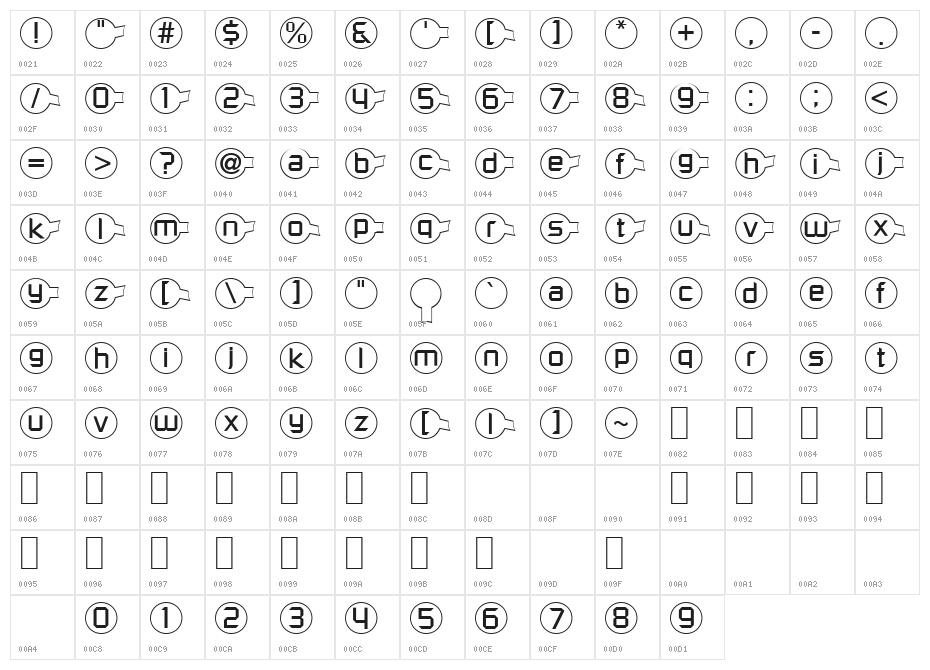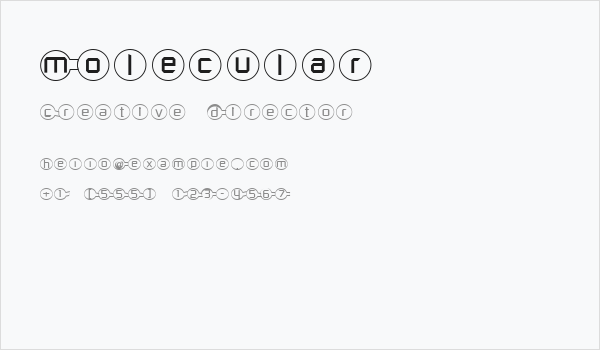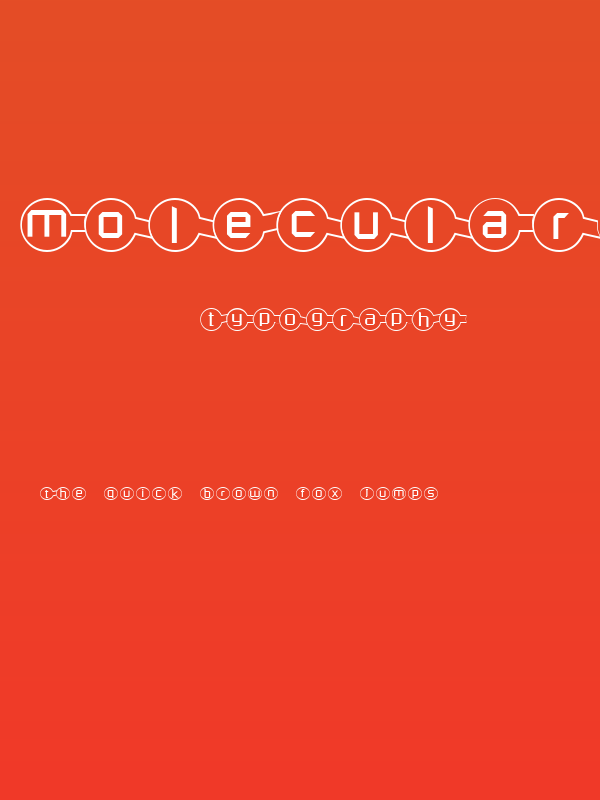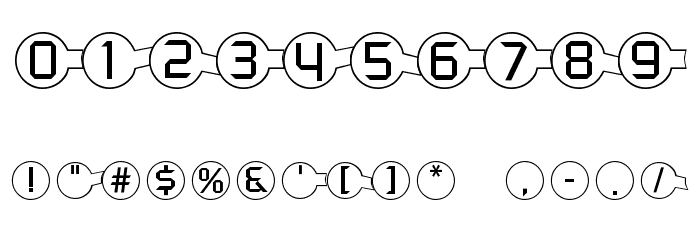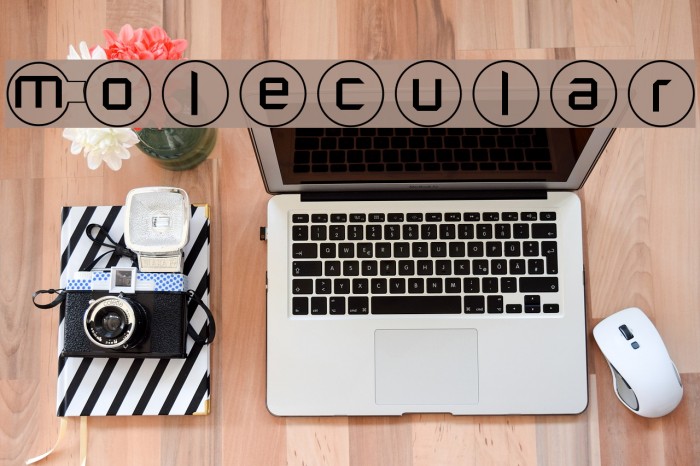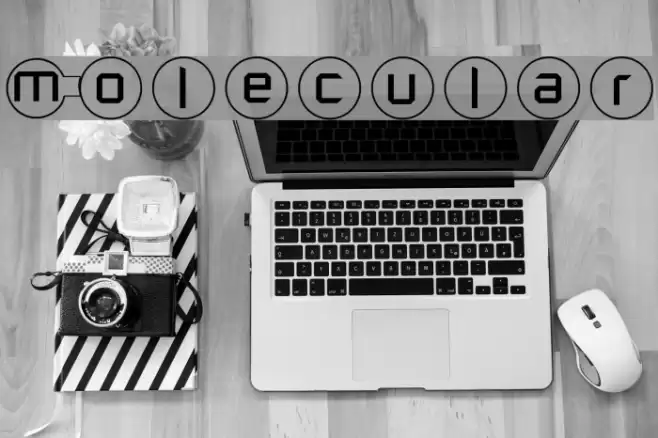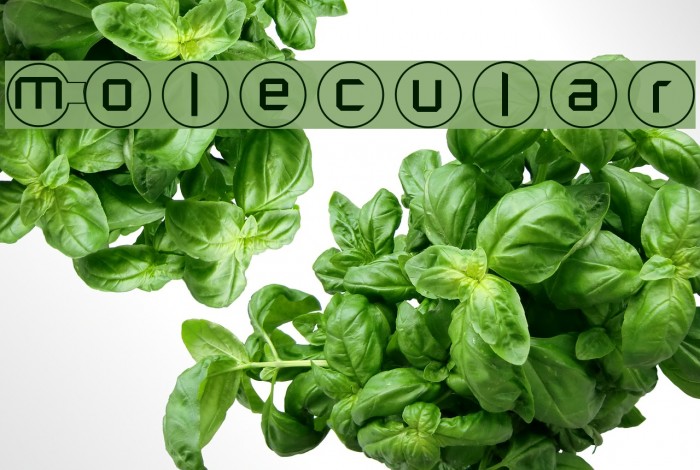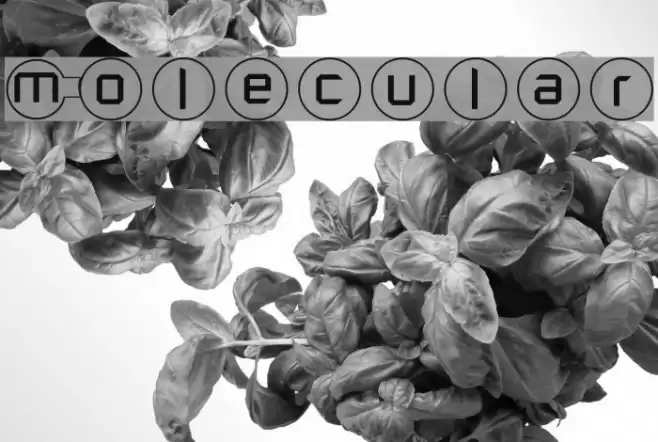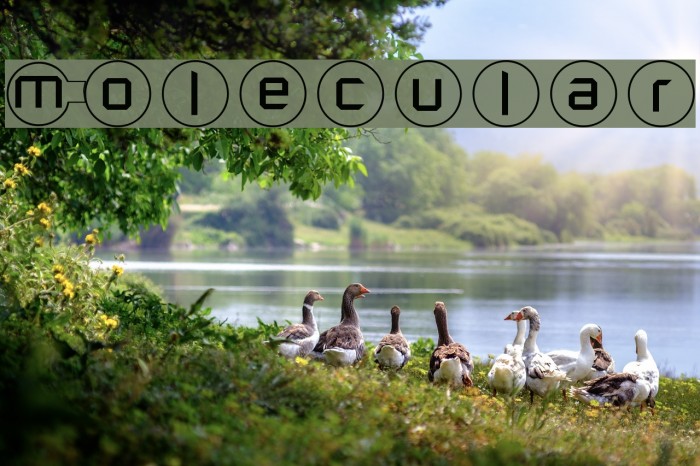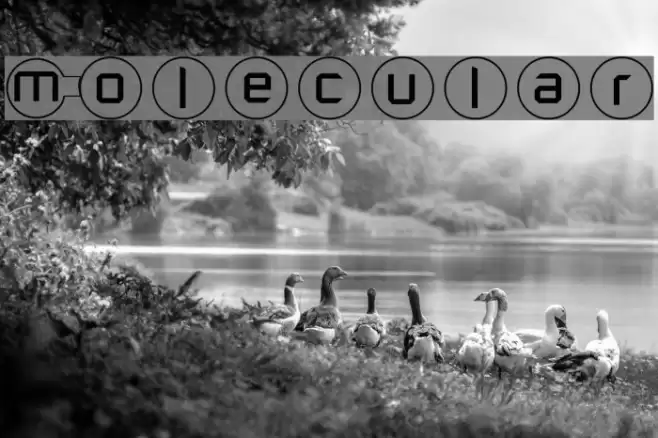
Molecular Font
Molecular Description
This font features a unique and playful design where each character is enclosed within a circle, resembling molecular structures. The characters are connected by lines, creating a chain-like appearance. The style is geometric and modern, with clean lines and a futuristic feel. The uppercase and lowercase letters maintain consistency in their circular enclosures, while numbers and special characters follow the same design principle. This font stands out for its creative and decorative approach, making it ideal for projects that require a distinctive and eye-catching typeface.
| Use Case | Logos, Headlines, Posters |
| Proposed Projects | Ideal for science-themed posters, educational materials, children's books, and creative branding. |